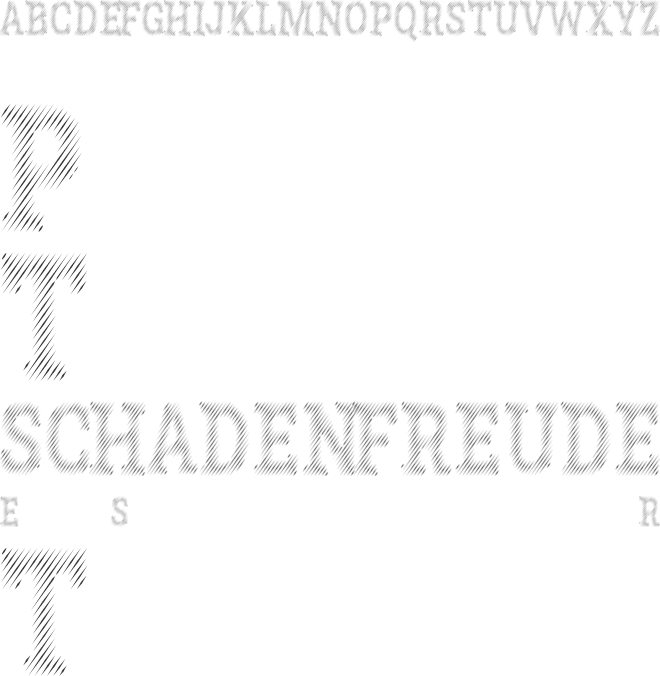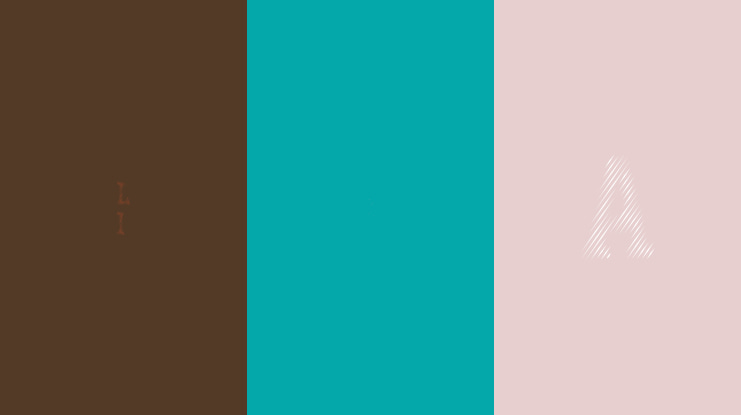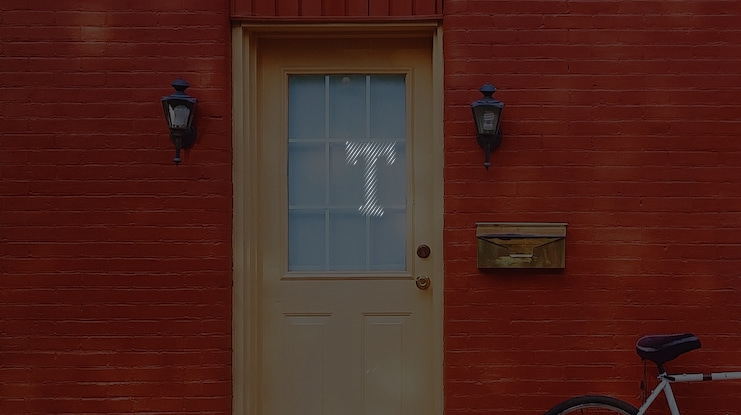
Tapper Font
🎨 Font Name: TAPPER by Minimalist Art Studio
🎨 Font Description: TAPPER is an authentic decorative slab serif with bold diagonal texture and royal flair, perfect for headlines, branding, and vintage-inspired design.